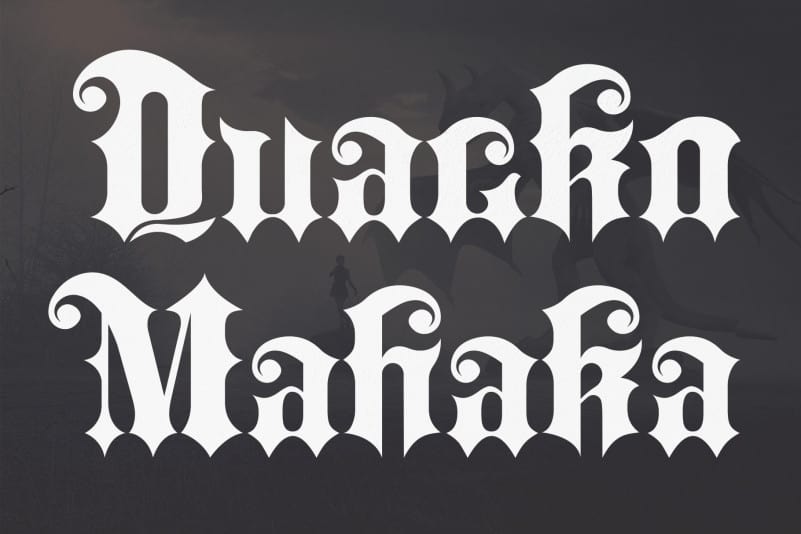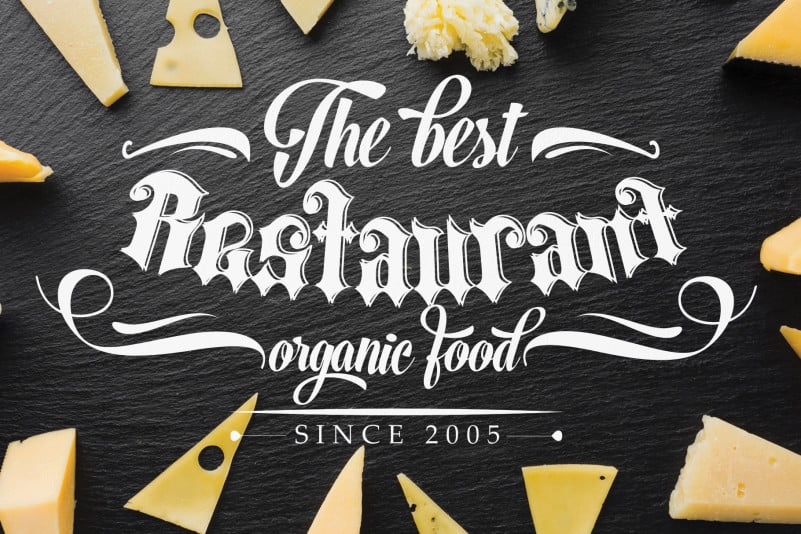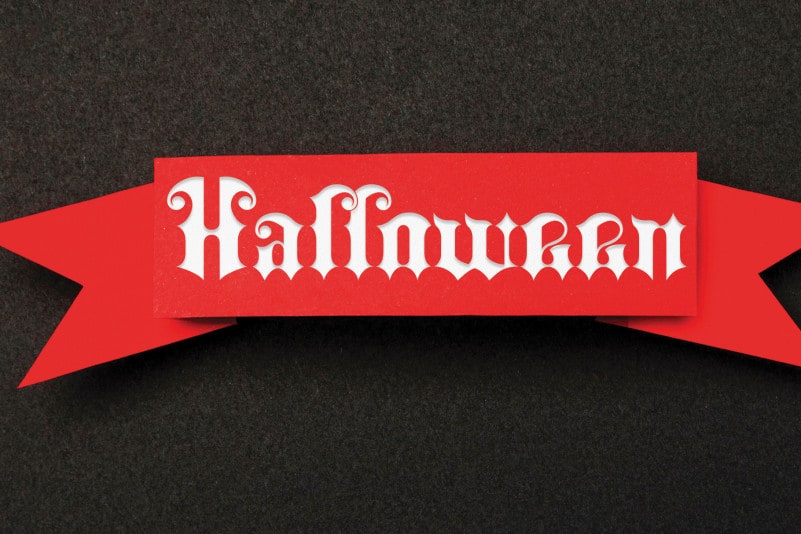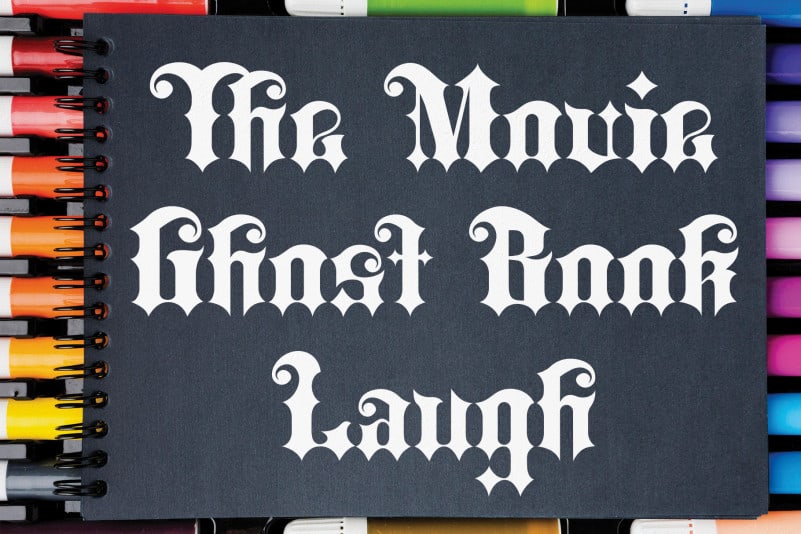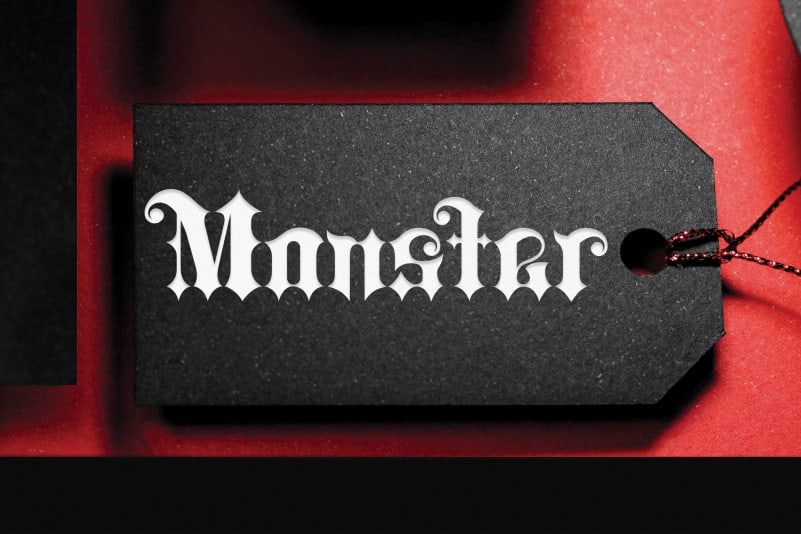
Quacko Mahaka Blackletter Font
Quacko Mahaka Blackletter Font is a very authentic and bold blackletter font. Add this font to your favorite creative idea and see how it stands out! Latest style fonts are perfect for beautiful stationary wall art, compelling social media posts, exhibitions, social media post logos, advertisements, product packaging, product designs, labels, photography, watermarks, invitations, stationery, and any project.
Quacko Mahaka Blackletter Font includes a complete set of beautiful upper and lowercase letters, numbers, a wide variety of punctuation marks, and ligatures. All lowercase letters include the start and end of the swash, providing a realistic handwriting style. all that you get.
The newest style letters are perfect for wall displays, wedding invitations, social media post logos,
advertisement, product packaging, product design, label, photography, watermark, invitation, writing tool,
and any project that requires handwritten taste.